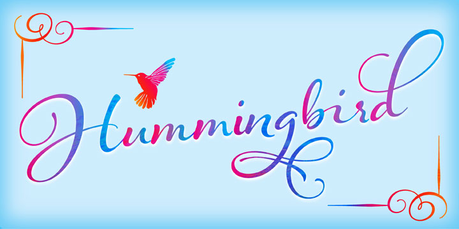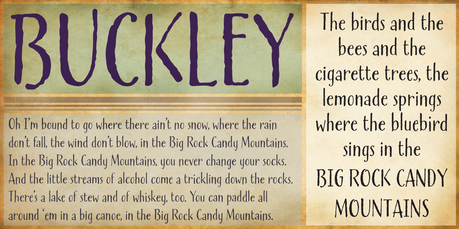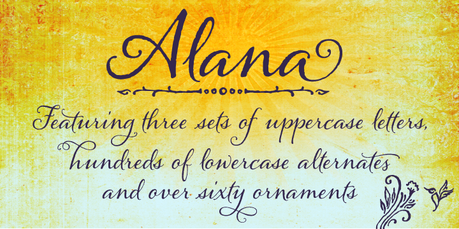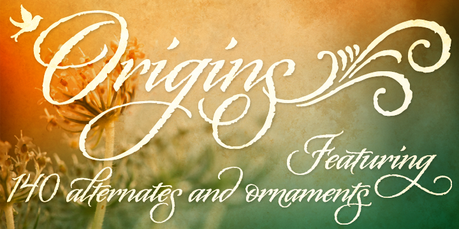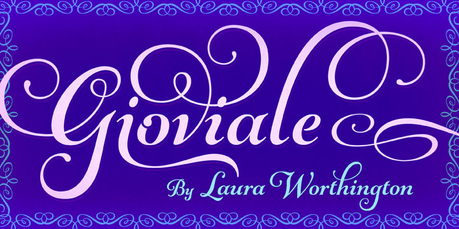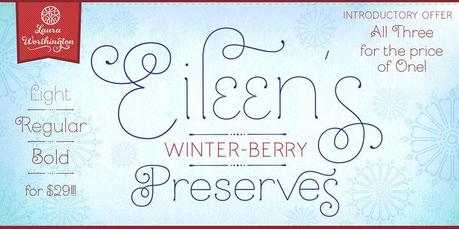
I am a HUGE fan of Laura Worthington. She’s a fabulous human being, as well as a top notch designer of beautiful calligraphy fonts.
As a gifted lettering artist and graphic designer she found her calling when she began designing type.
Her large selection of fonts can be found on Best Sellers lists all over the web and a large number have earned the honor of Rising Star and the Most Popular fonts annual list.
She has also had the honor of being interviewed as one of Myfonts “Creative Characters.” I can only dream:)
Feast your eyes on just a handful of her cursive fonts starting with “Funkydori”.
“Funkydori” was selected as one of the Most Popular fonts of 2012 on Myfonts.com.
I love the overall weight of it and the thick swashes that add plenty of “funk”. It’s cool without trying to be.
Gioviale, moves and sways with ease.
Hummingbird wafts like a light garden breeze.
And Samantha Script feels like a classic script with a touch of whimsy.
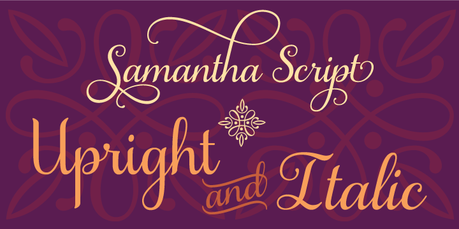
More of her script fonts includeAlana and Origins, which was one of her first fonts.
Any of these would be great choices for invitations depending on the style you want to evoke.
Newer fonts include Buckley, with an earthy touch
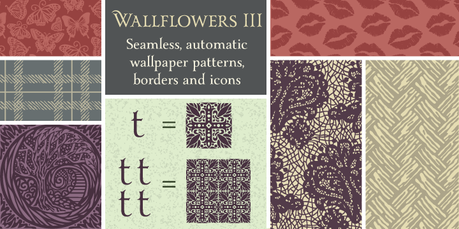
I just can’t get enough of her work. And there’s so much more to see!